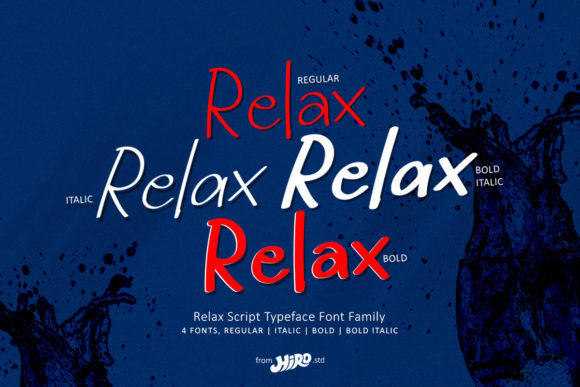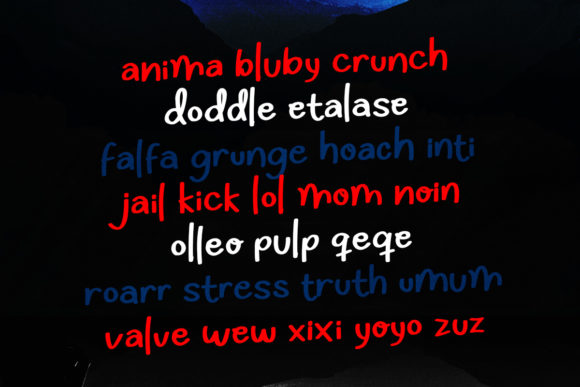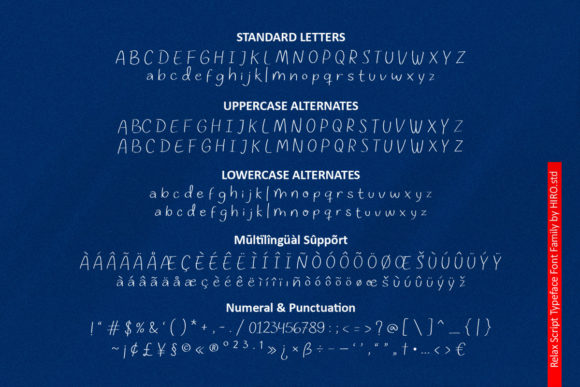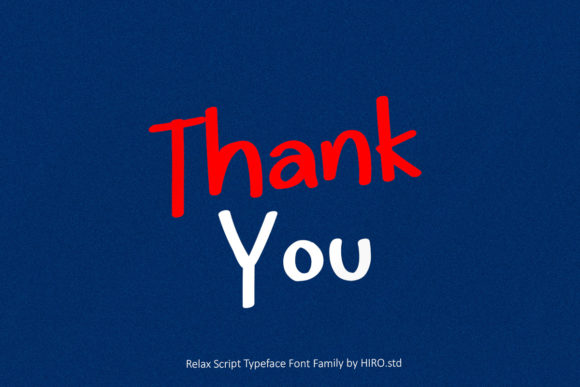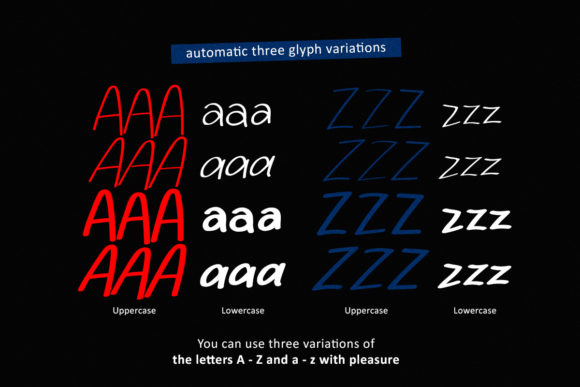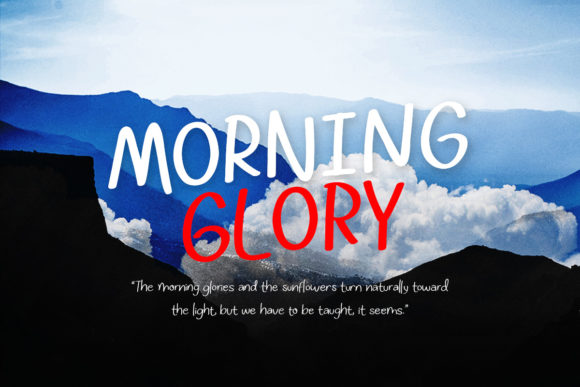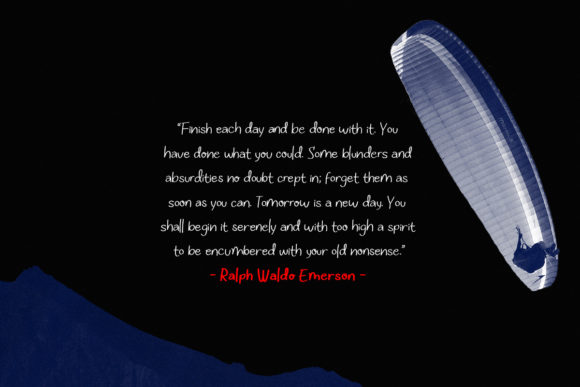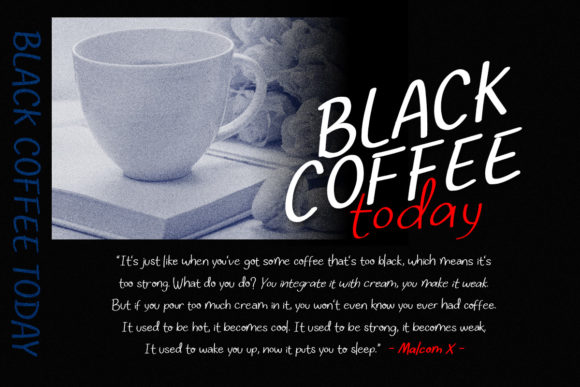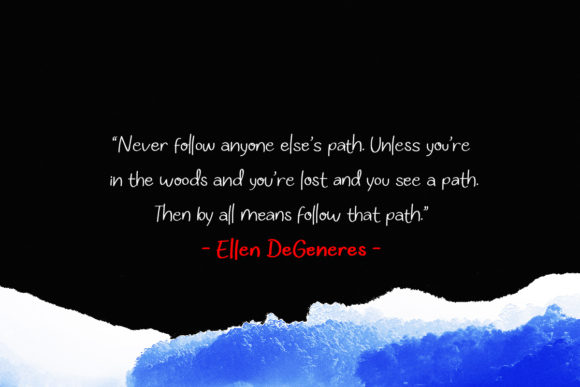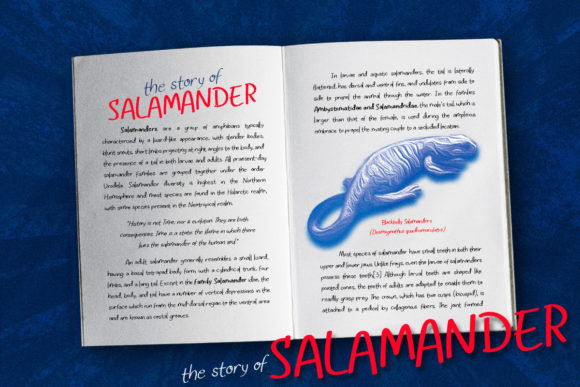
Relax Font
About Relax Font
Relax is a brush handwritten font. Its casual charm makes it appear wonderfully down-to-earth, readable and, ultimately, incredibly versatile. Relax will look outstanding in any context, whether it’s being used on busy backgrounds or as a standalone headline!